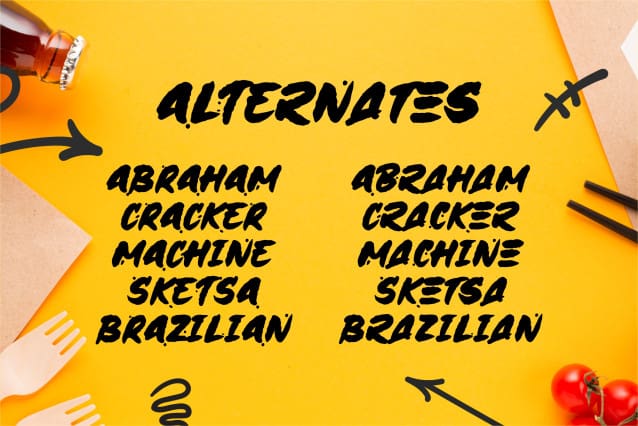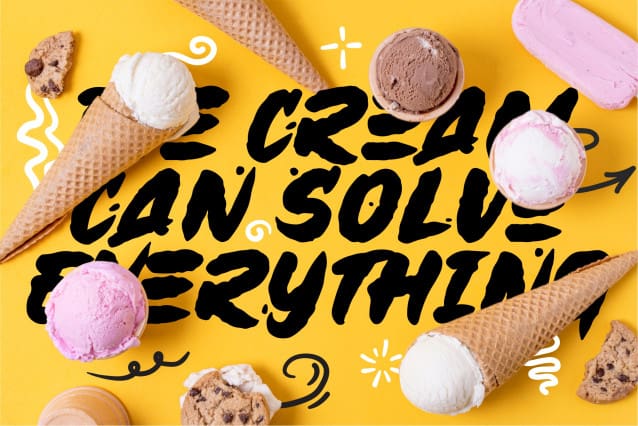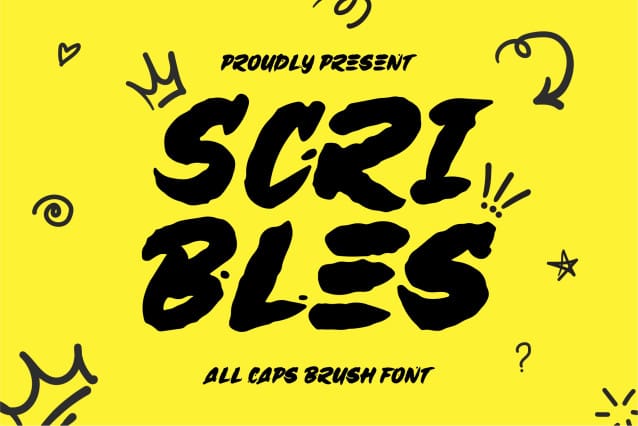
BKR Scribles Font
BKR Scribles Font is a robust and dynamic hard brush font designed to make a bold statement. This font features strong, confident brush strokes that convey a sense of power and energy.
Each character is crafted with thick, powerful brush strokes, giving the font a distinct and vigorous appearance. The textured edges add a raw, authentic feel, reminiscent of hand-painted signage. With over 240+ glyphs, Hard Brush Font offers a comprehensive range of characters to meet diverse typographic needs. This extensive set ensures versatility and adaptability across various languages and contexts.
The font includes stylish swashes that add flair and elegance to your text. These decorative elements enhance the visual impact and are perfect for adding a touch of sophistication to your designs. Numerous ligatures are incorporated into the font, allowing for smooth and natural connections between characters. These ligatures ensure seamless readability and a polished look in any composition. With a variety of alternate characters, Scribles All Caps Brush Font provides additional flexibility and creative possibilities. These alternates enable you to experiment with different looks and tailor the text to suit your design aesthetic.